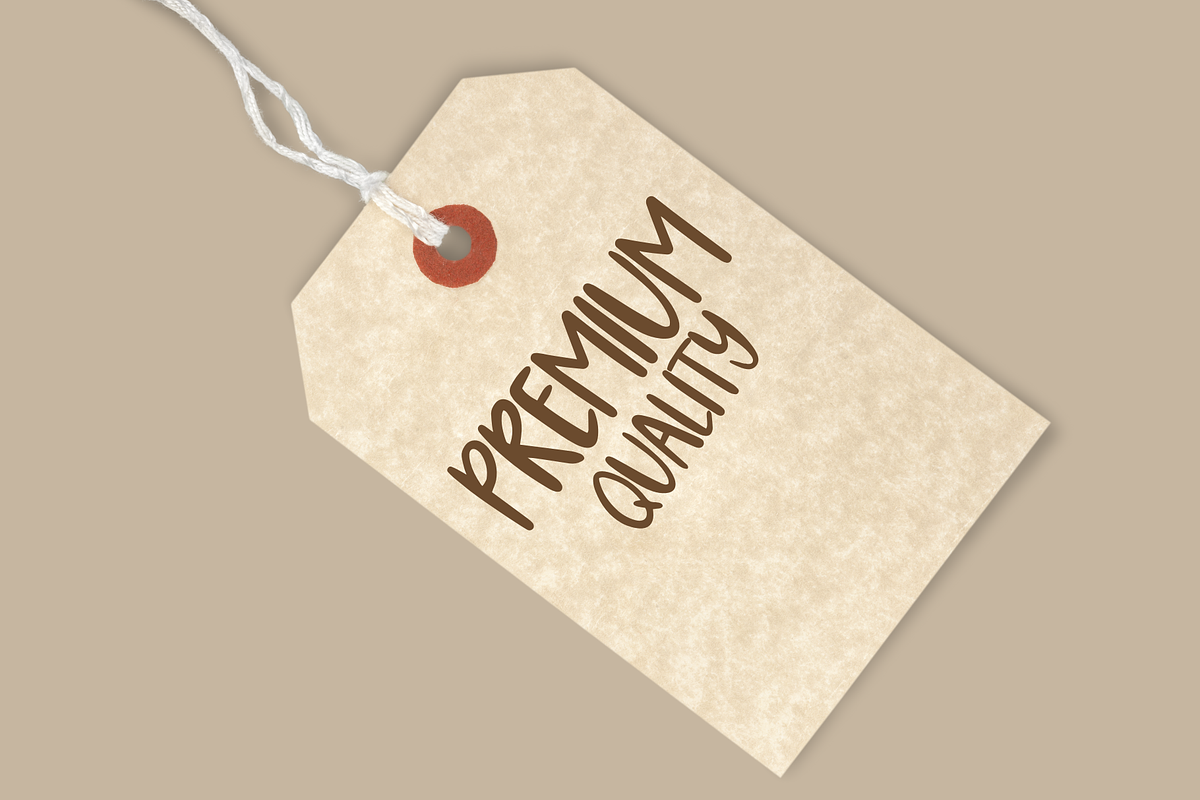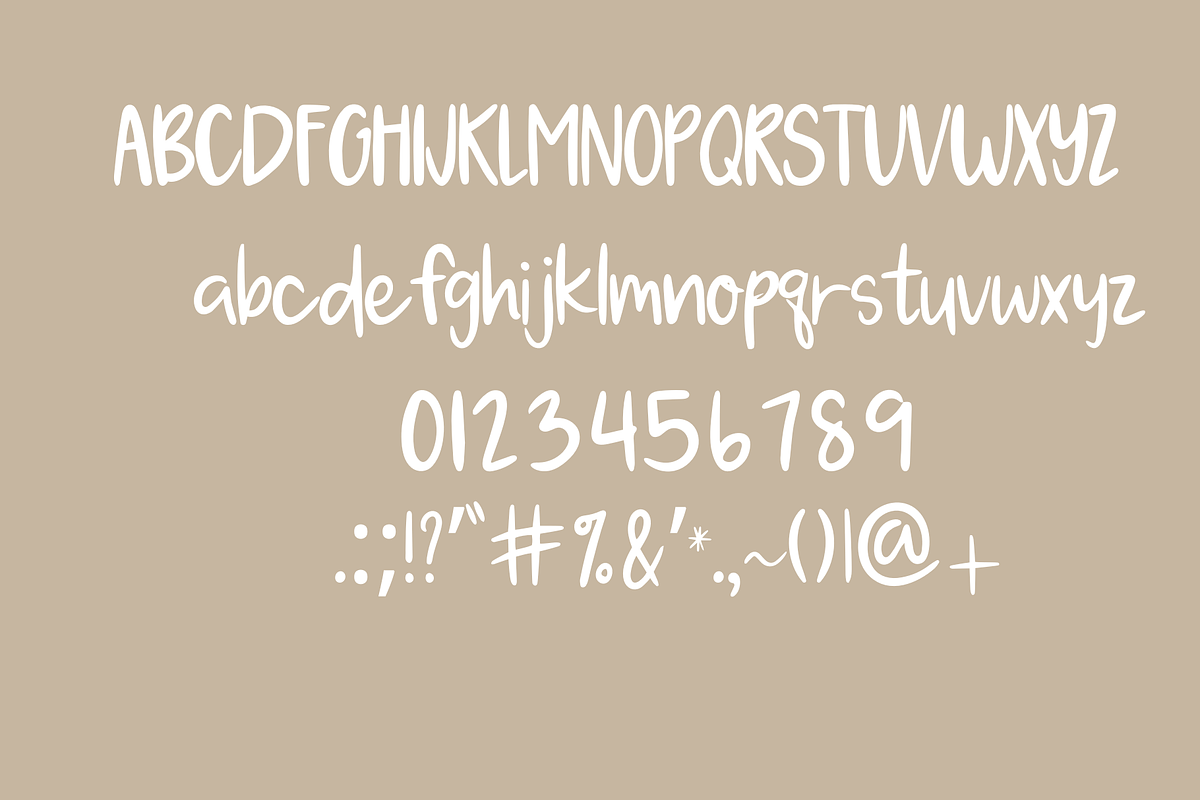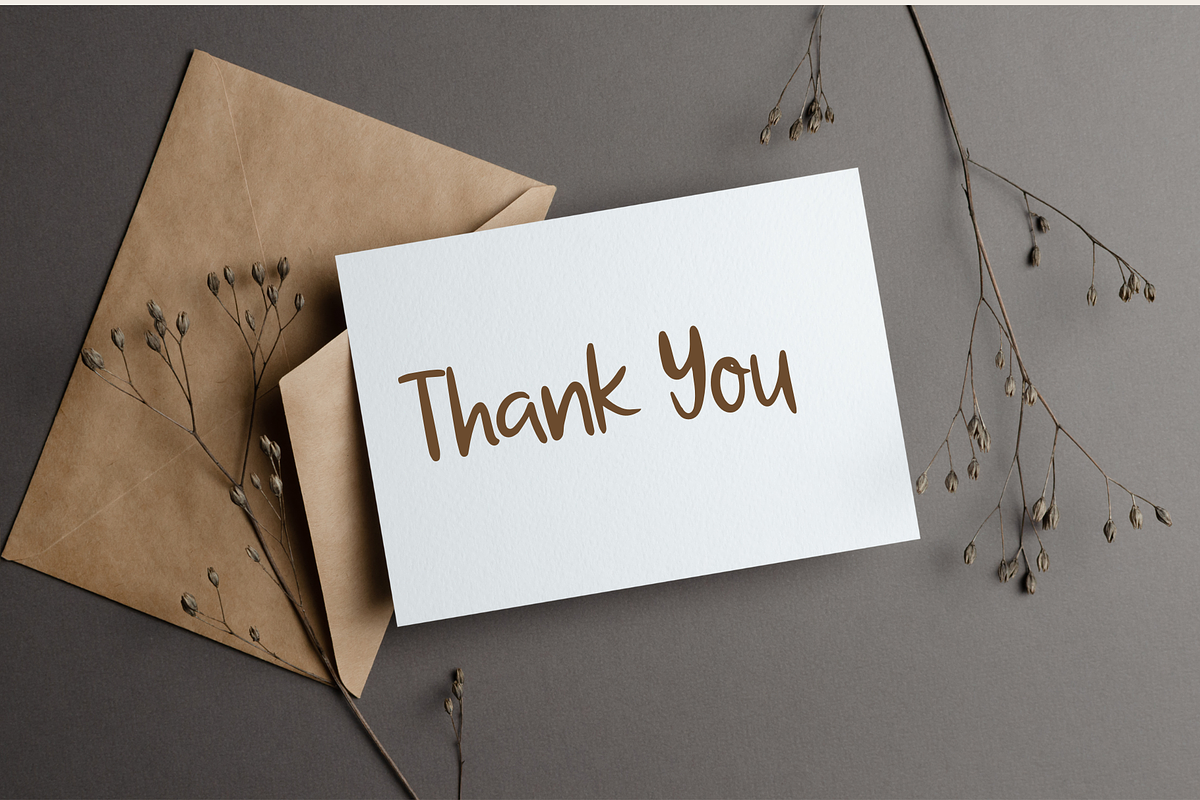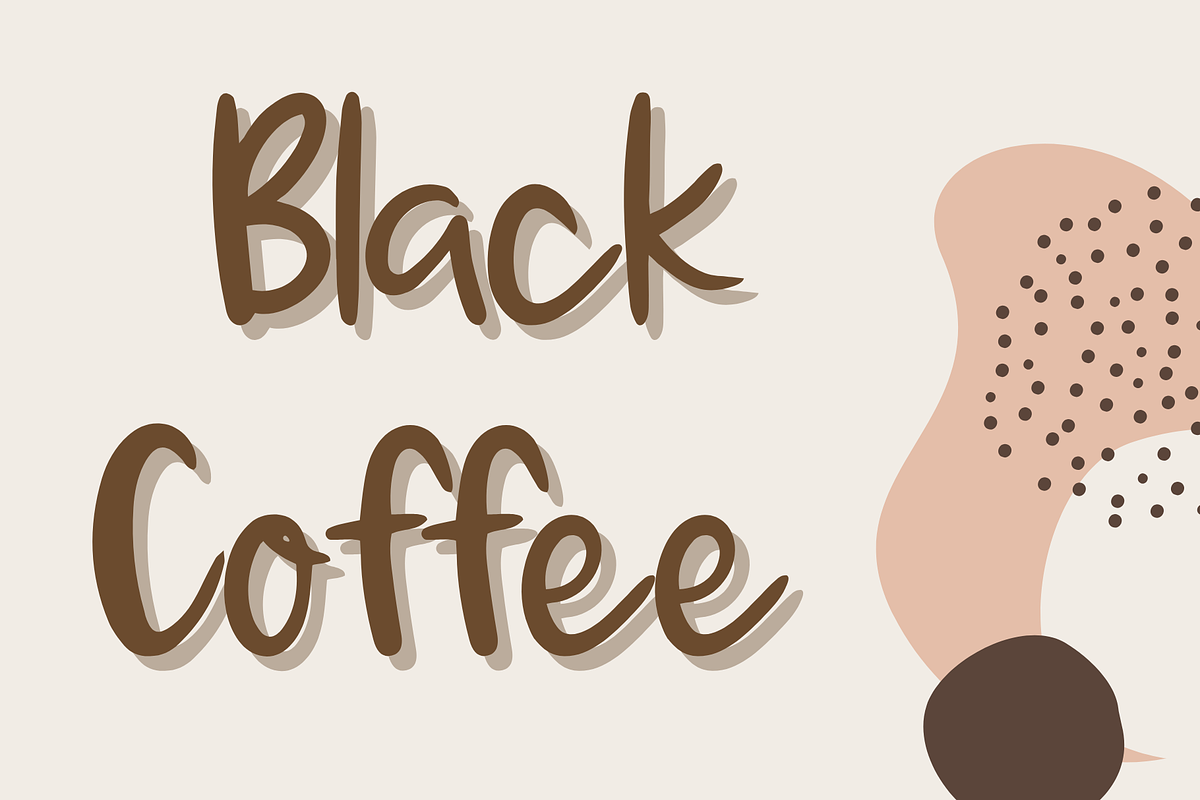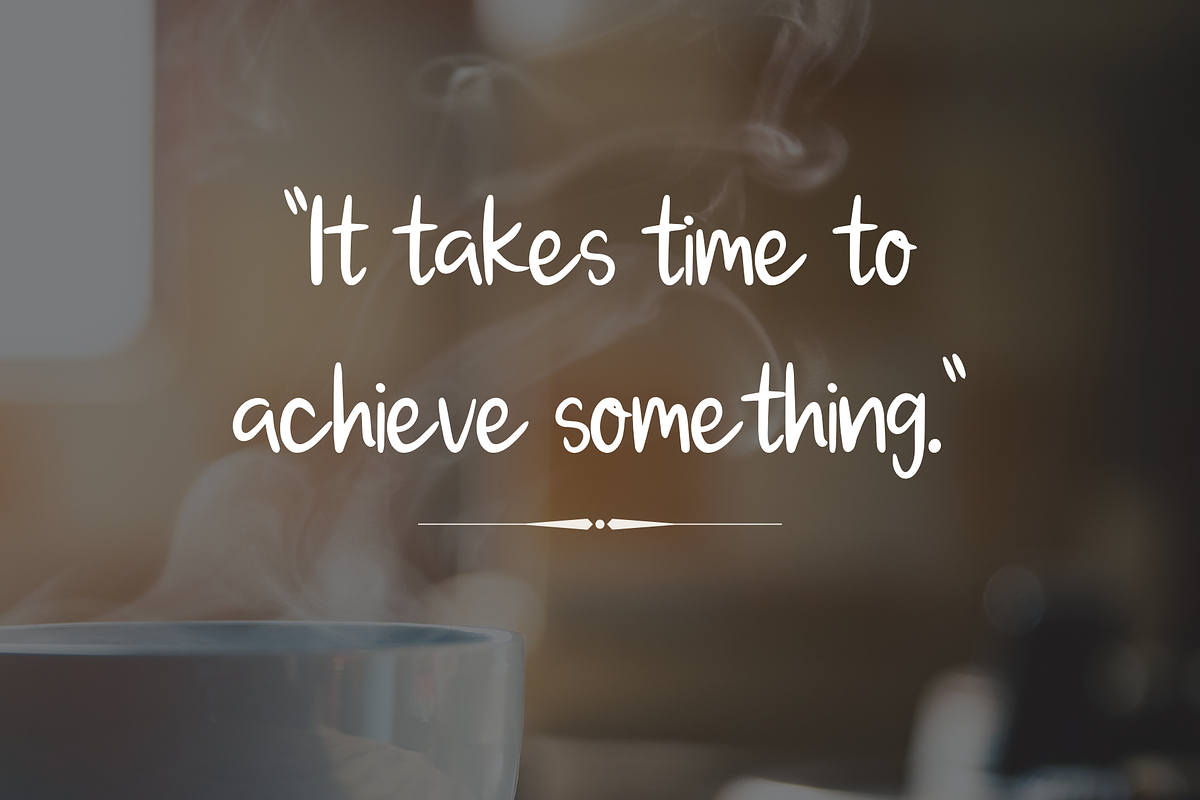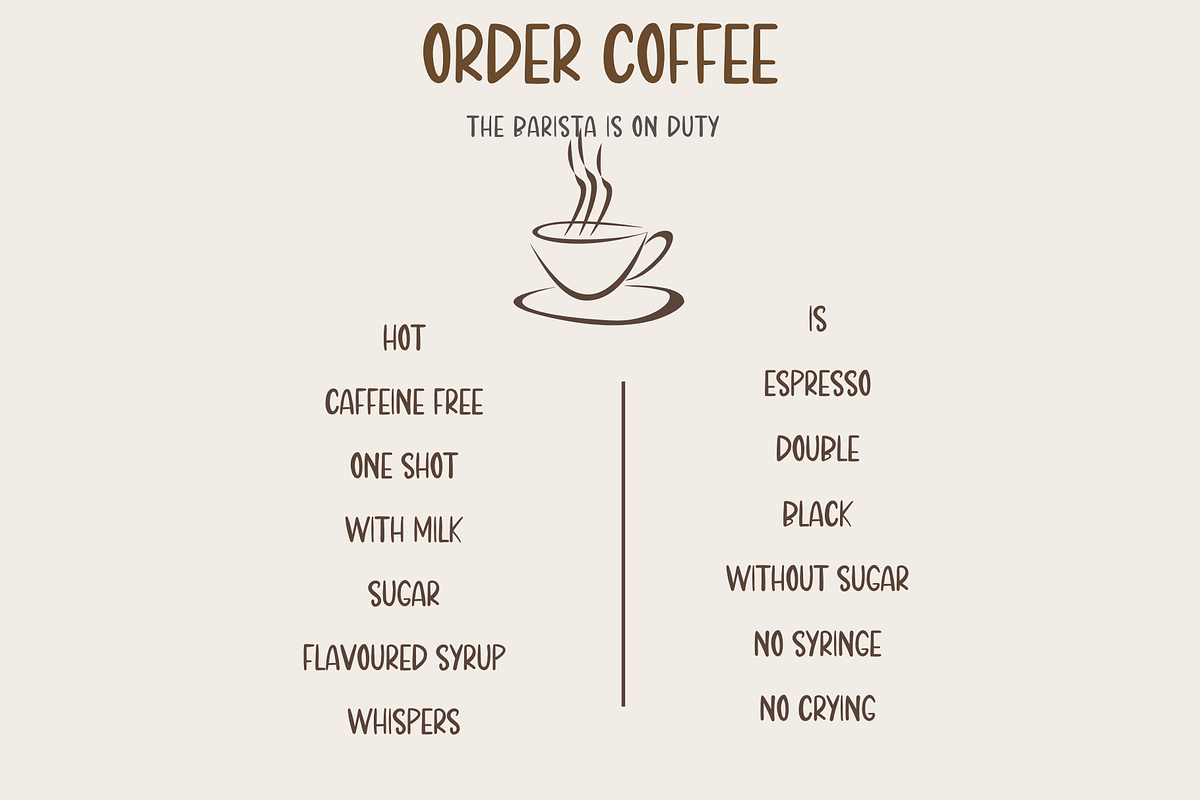
Black Coffee
Black Coffee is a cute and friendly handwritten font. It will add elegance and class to any of your design projects, perfect for casual type in greeting cards, illustrations, quotes, quaint branding, book covers, children's books, packaging and so much more :)